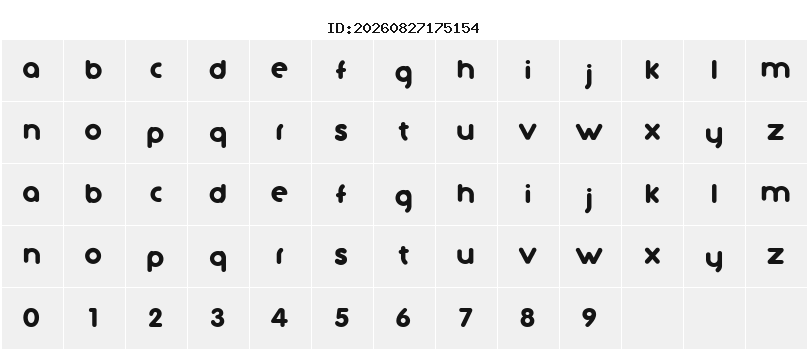
tutano.cc Preview
• Font Name: tutano.cc
• Full Font Name: tutano.cc
About tutano.cc.ttf
tutano.cc.ttf is a modern, elegant sans-serif font designed for ultimate readability and visual harmony. Perfect for branding, headlines, web design, and print materials.